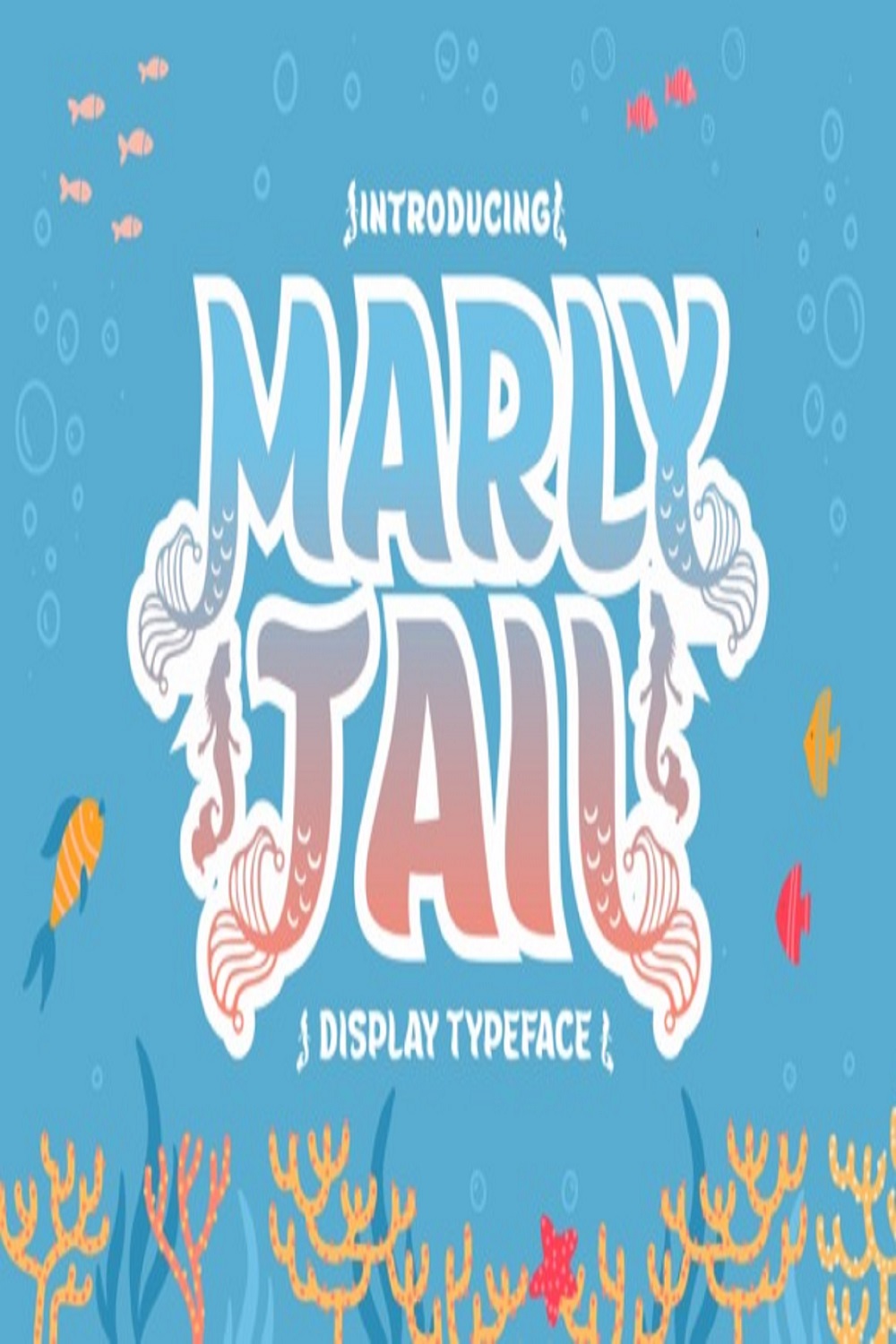
Marly Tail is a chic, trendy, and thick lettered decorative font. It embodies playfulness and authenticity and is the perfect choice for any children’s activity or school project.